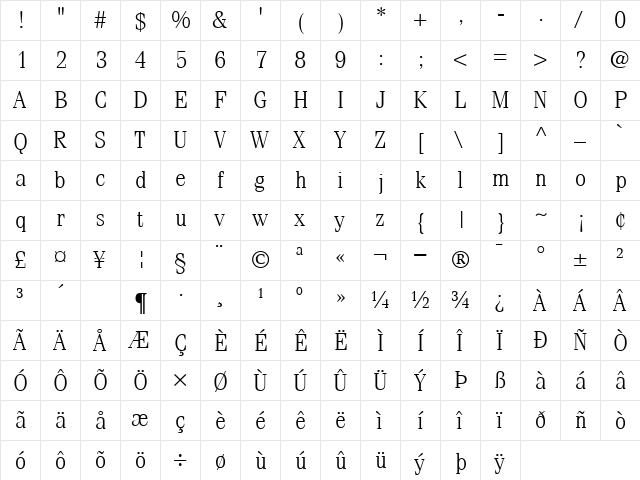
Fenice Light Font Preview
Fenice Light
Design Context for Fenice Typeface
Fenice is a composed and adaptable typeface that performs quietly and consistently across a wide range of design contexts. Its slender proportions lend an understated elegance to any composition.